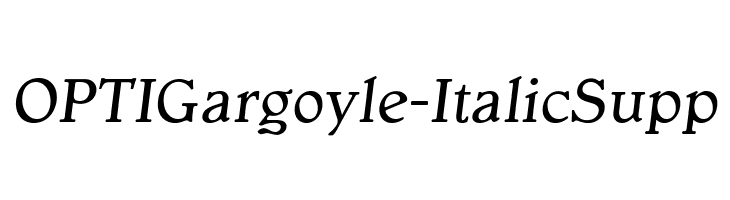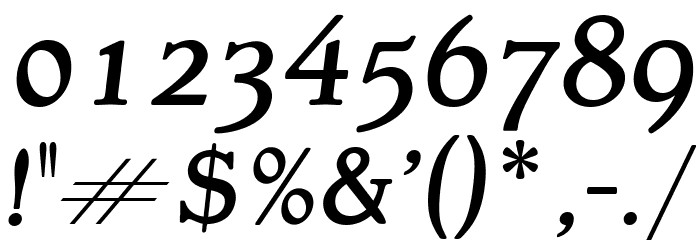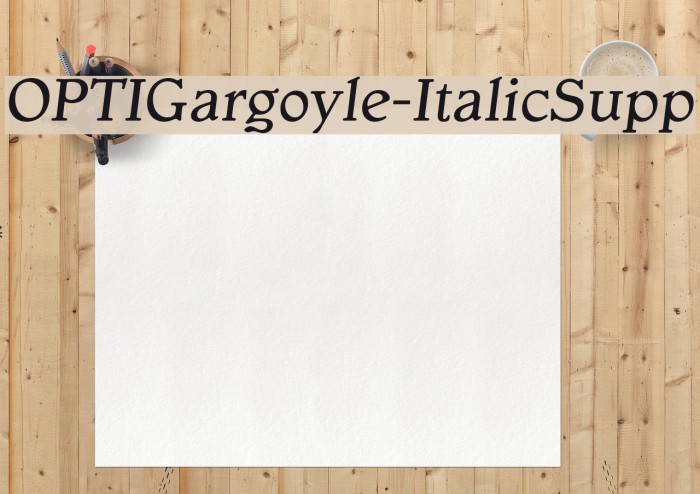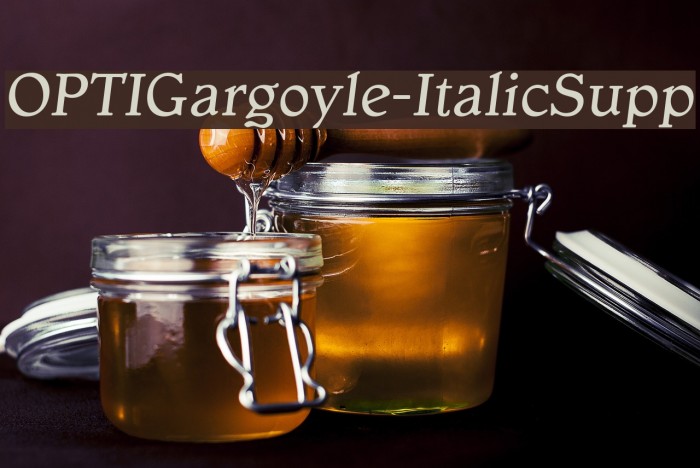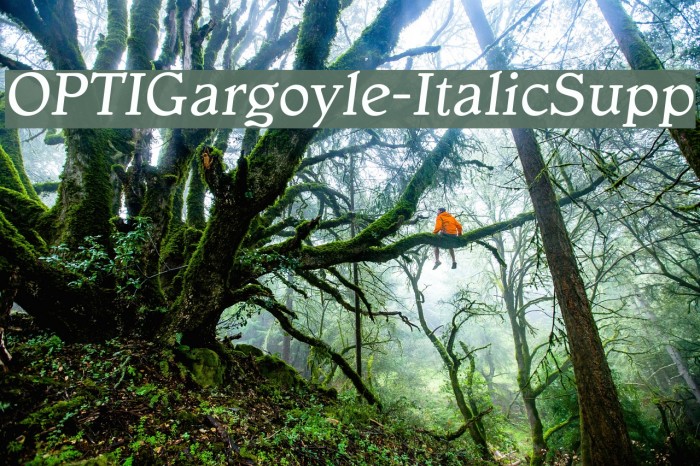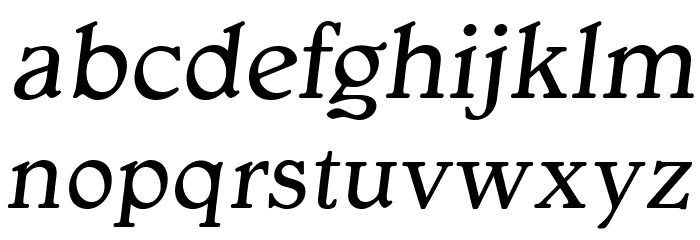
OPTIGargoyle-ItalicSupp
This font features an elegant and sophisticated italic style with a classic serif design. The characters exhibit a graceful slant, enhancing the fluidity and dynamism of the text. The serifs are pronounced yet refined, adding a touch of tradition and formality. The uppercase letters are bold and commanding, while the lowercase letters maintain a balanced and harmonious appearance. The numerals are distinct and clear, ensuring readability. Special characters are well-integrated, maintaining the overall aesthetic. This font is ideal for projects that require a touch of elegance and sophistication.
An elegant italic serif font with a classic and sophisticated style from Serif fonts.
- Proposed Projects: Ideal for formal invitations, elegant branding, book covers, and editorial design.
- Overall Style: Classic